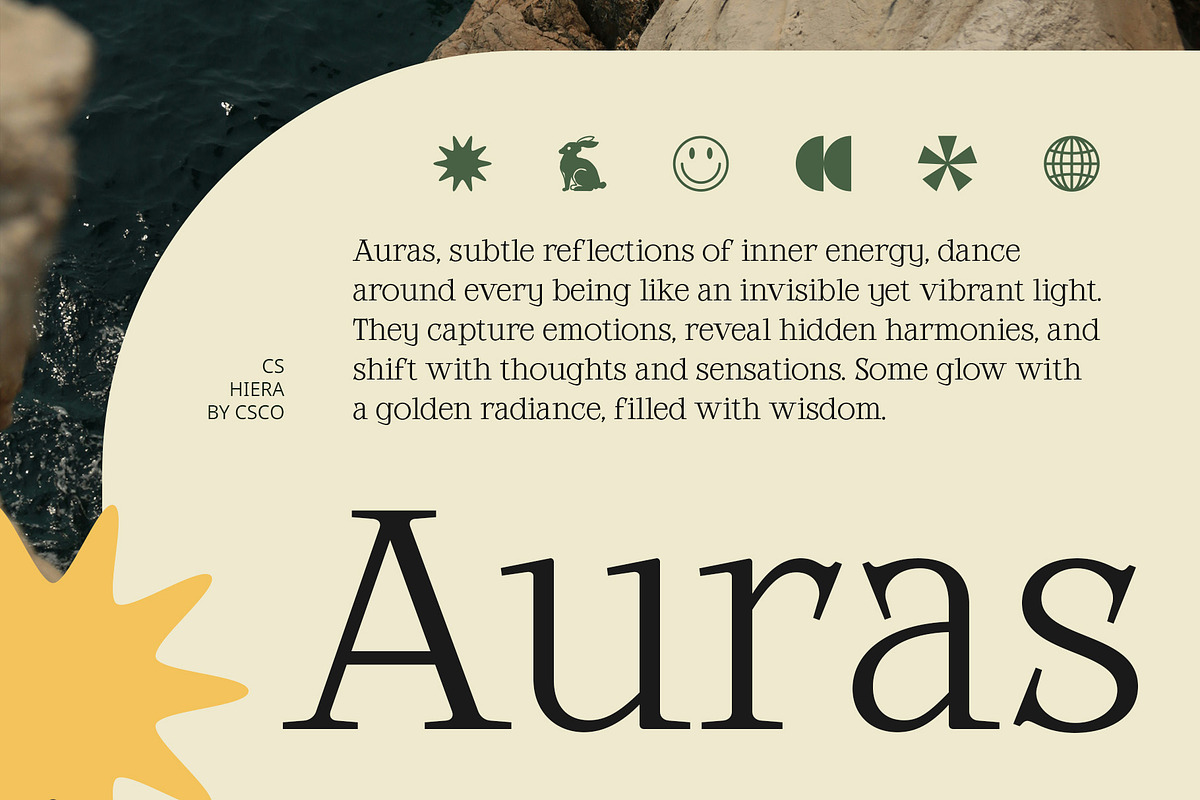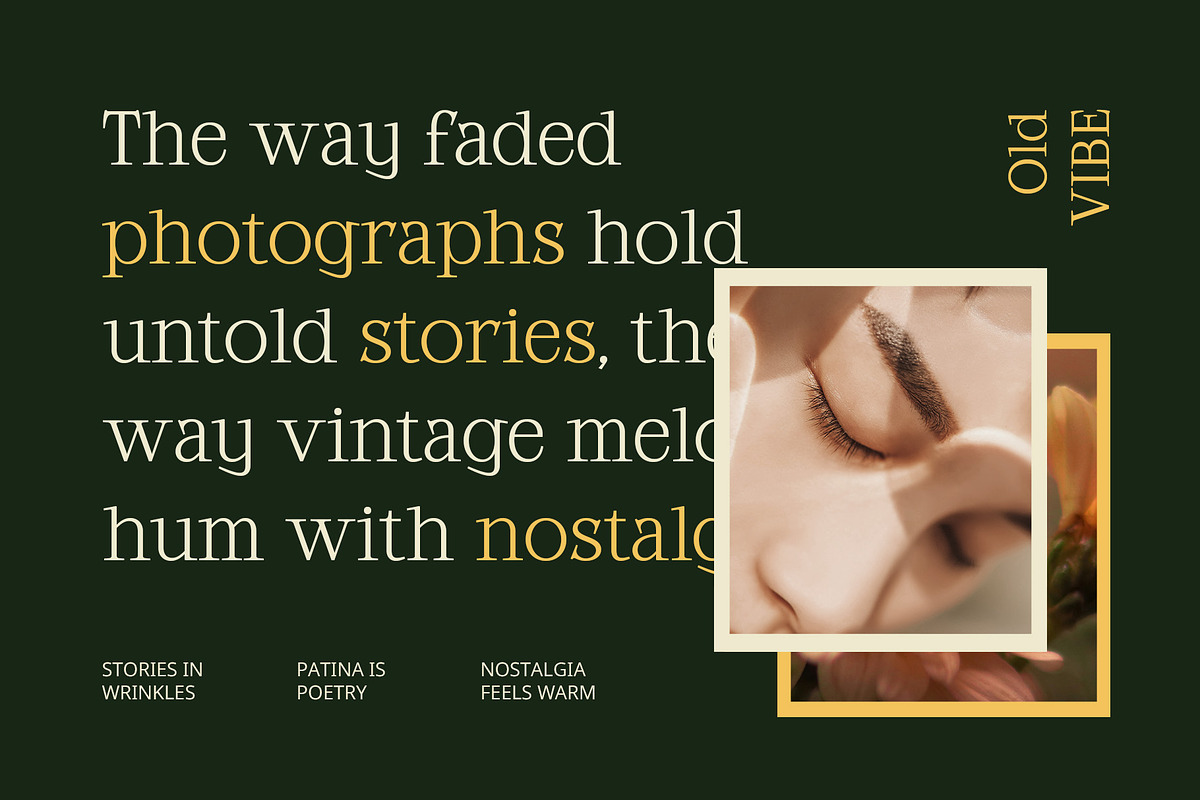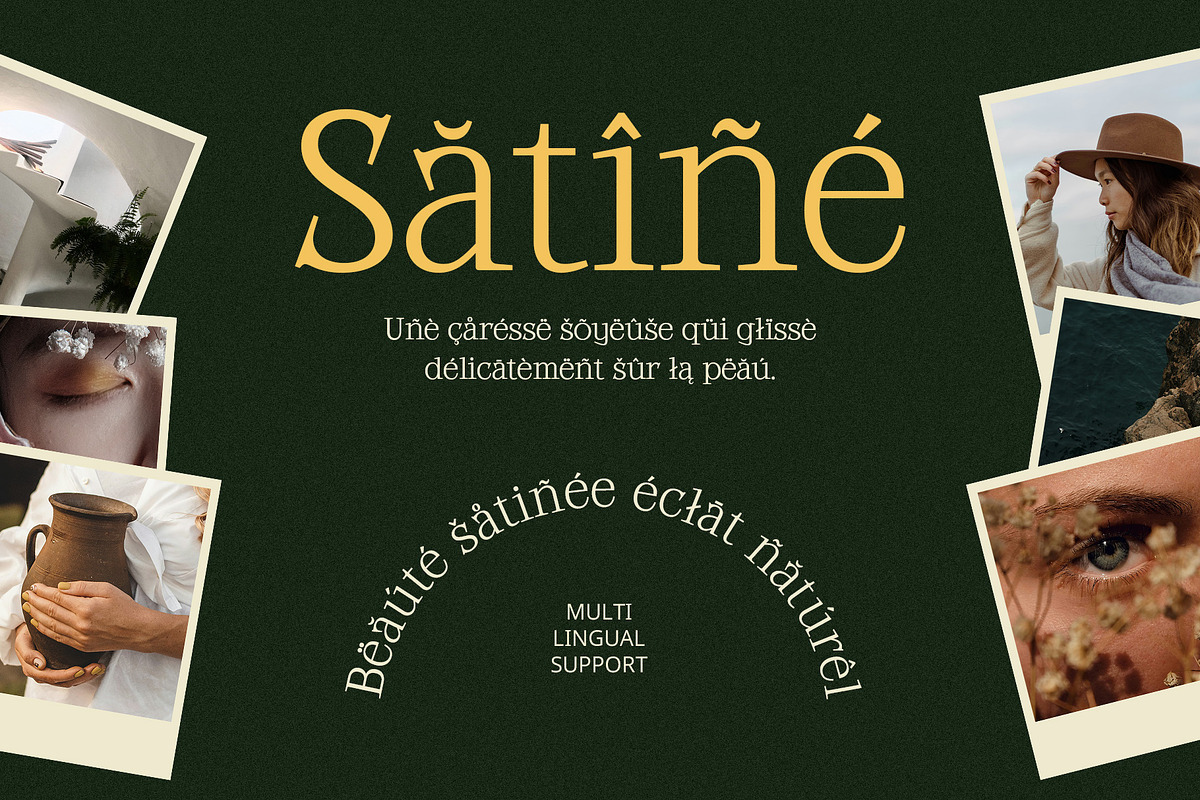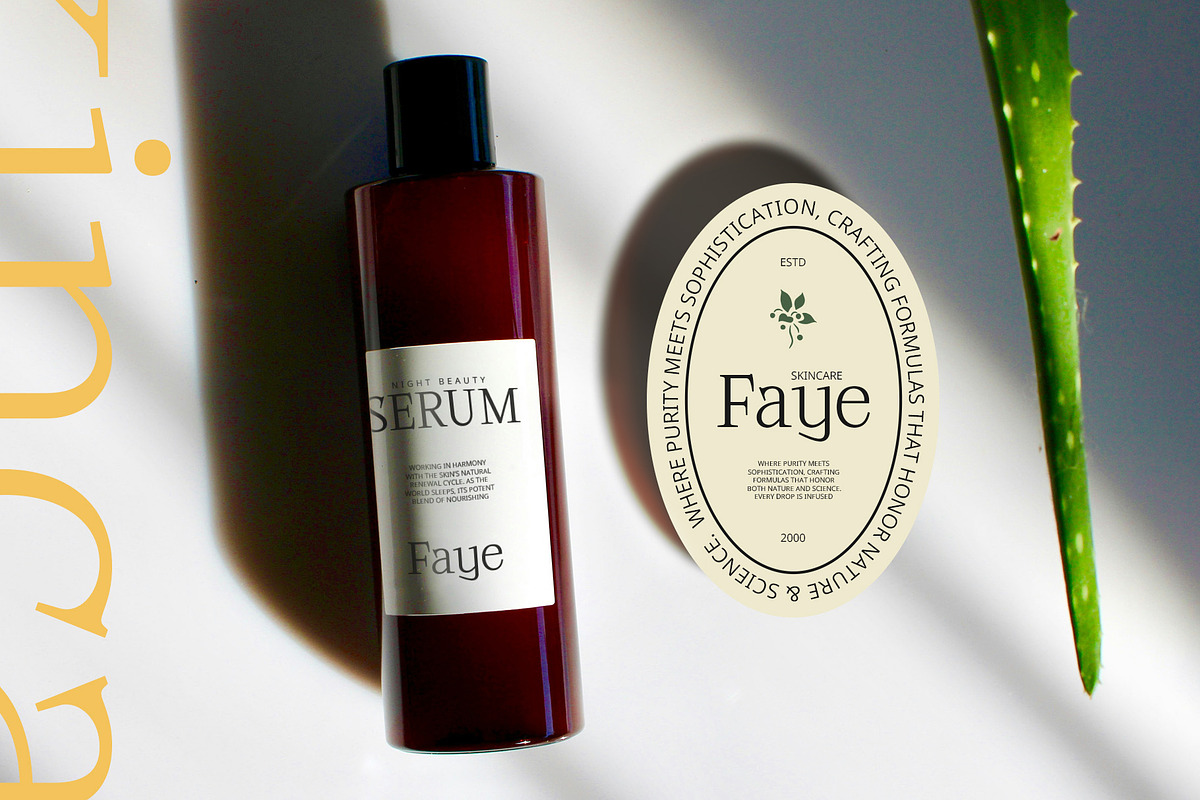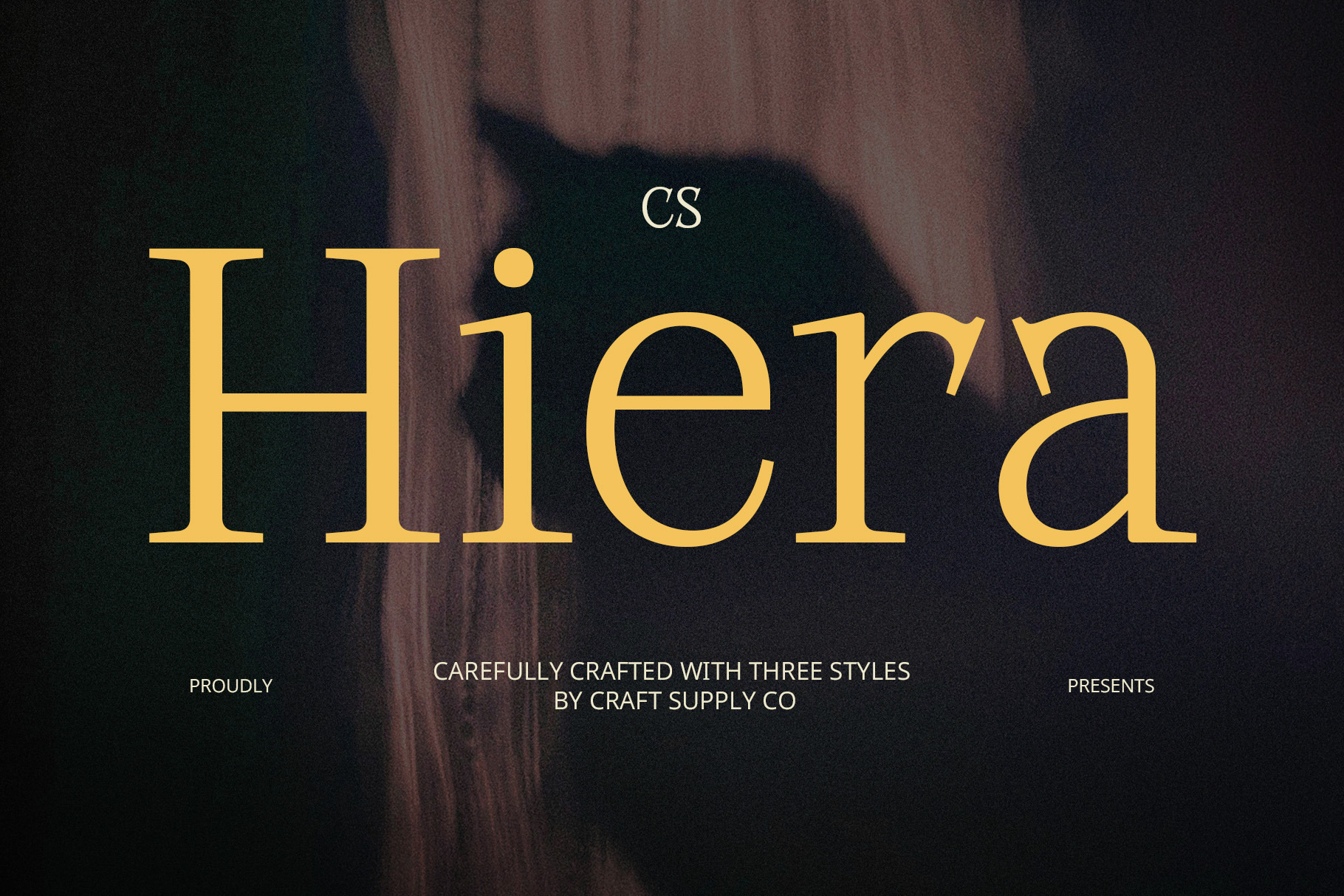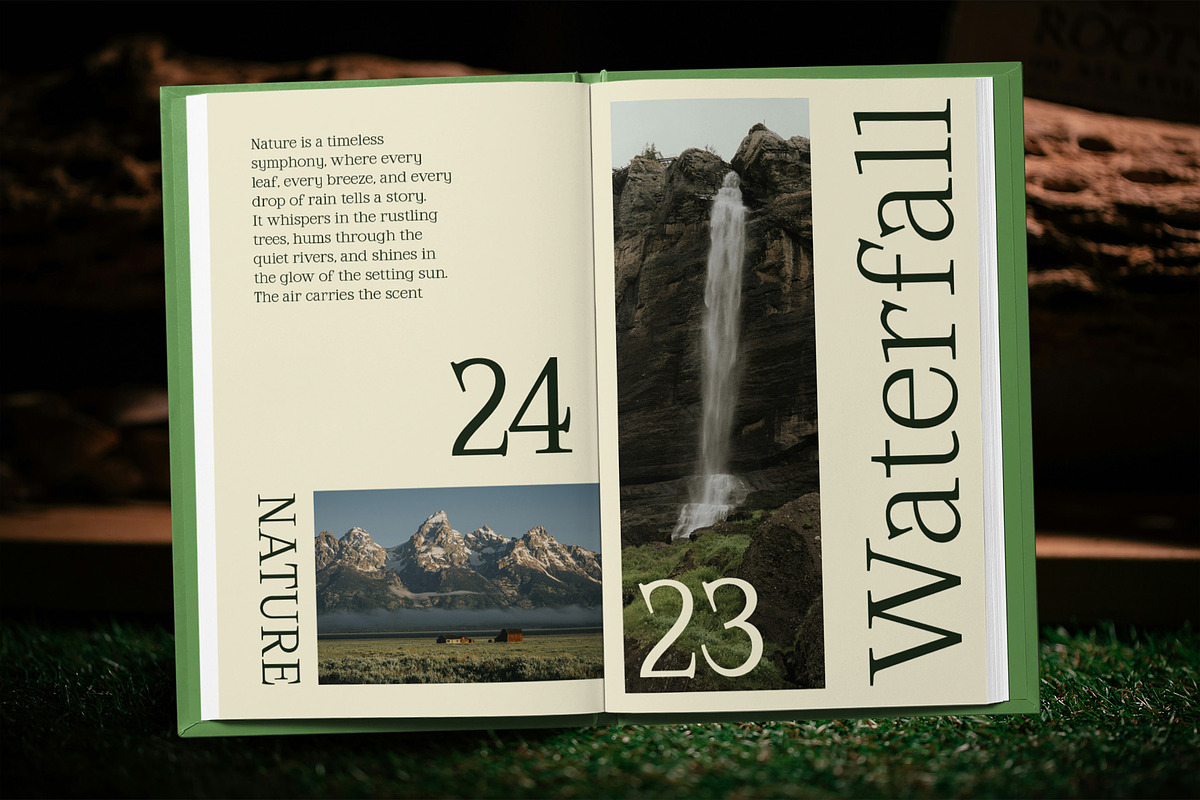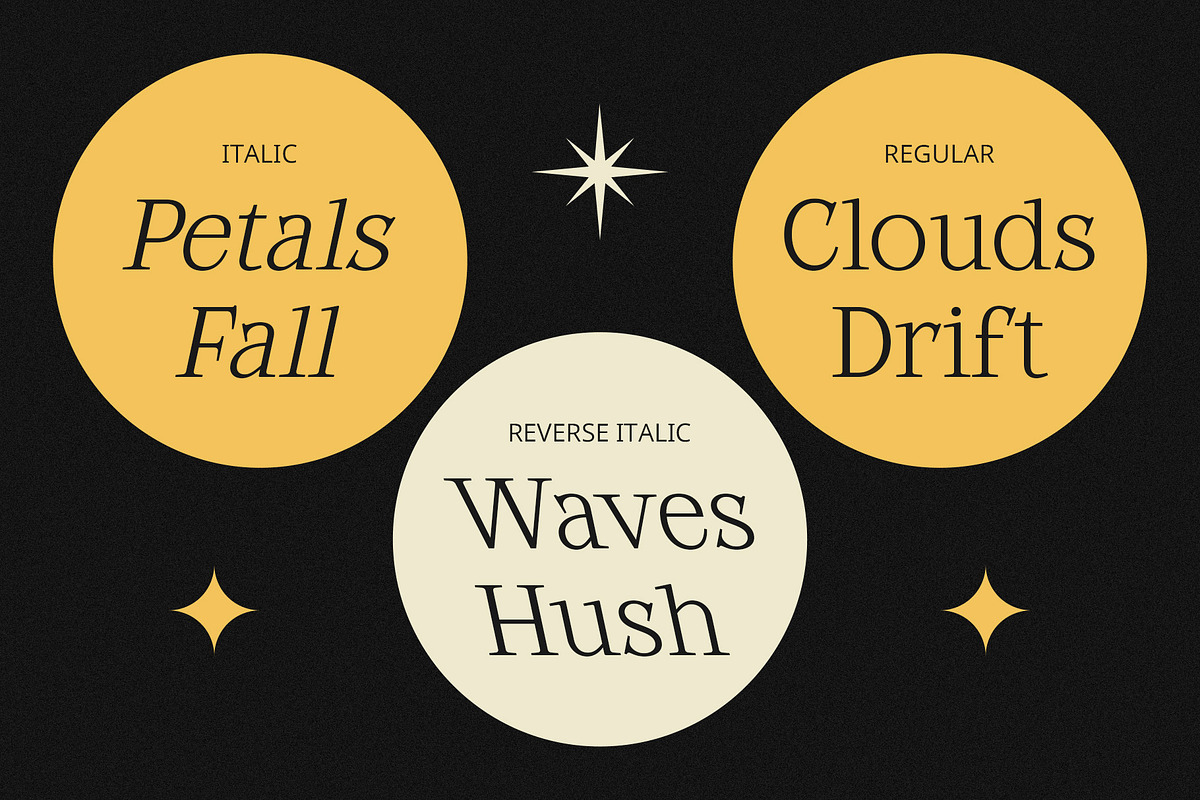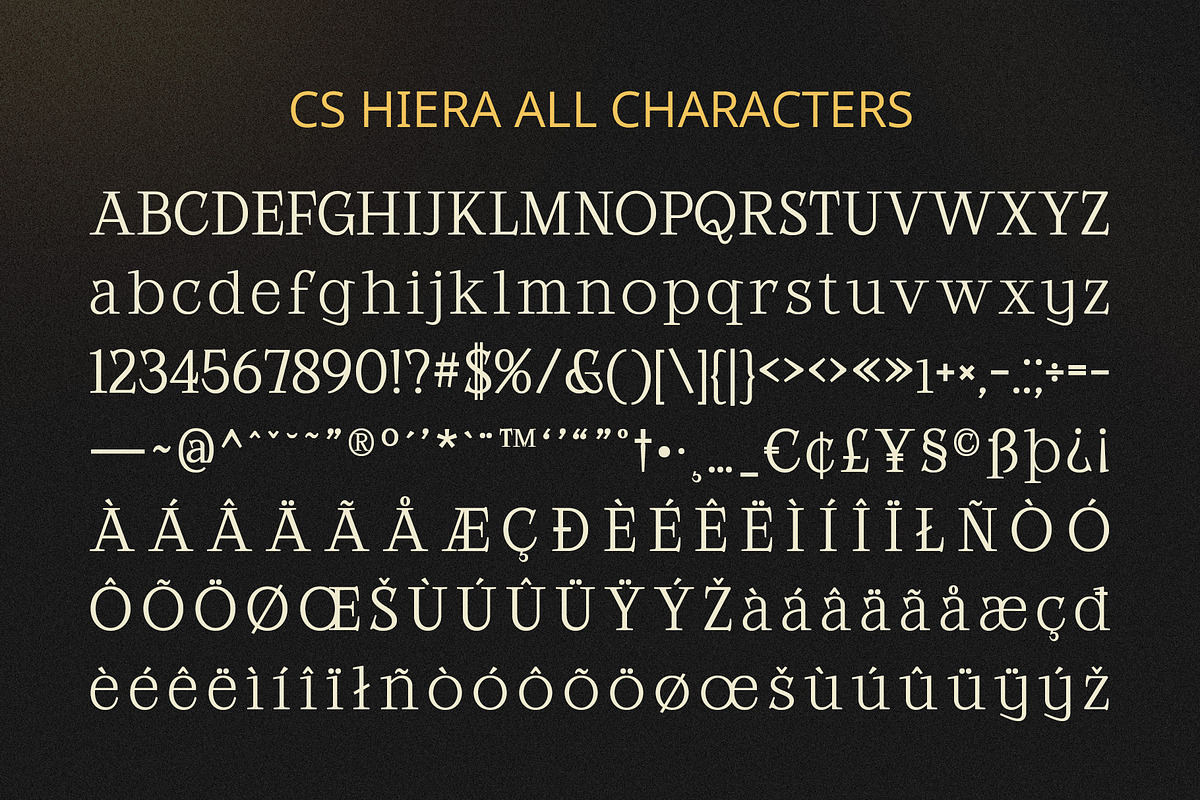
CS Hiera – Classic Font
CS Hiera – Classic Font: Modern Slab Serif with Timeless Appeal
Bold & Elegant Design CS Hiera is a modern slab serif font that effortlessly blends the bold and elegant elements of traditional design with a sleek, contemporary touch. Featuring strong serifs and distinct angles, this font conveys a sense of solidity, stability, and sophistication. Its powerful, yet refined design makes it an ideal choice for projects that require a balance of classic charm and modern relevance.
Versatile for Modern Branding & Design With its striking appearance, CS Hiera works beautifully across a wide range of modern design applications. From branding and posters to digital media, this font’s boldness ensures visibility and impact, while its clean lines maintain a fresh and professional look. Perfect for those aiming to capture a timeless yet modern aesthetic, it stands out in projects that require both strength and elegance.
A Classic with Contemporary Vibes While firmly rooted in the classic slab serif tradition, CS Hiera’s design feels fresh and current, making it highly adaptable for various uses. Whether you’re designing for luxury brands, corporate identities, or creative campaigns, this font delivers a sense of both tradition and innovation, ensuring that your message is not only seen but remembered.
- CS Hiera Regular
- CS Hiera Italic
- CS Hiera Reverse Italic